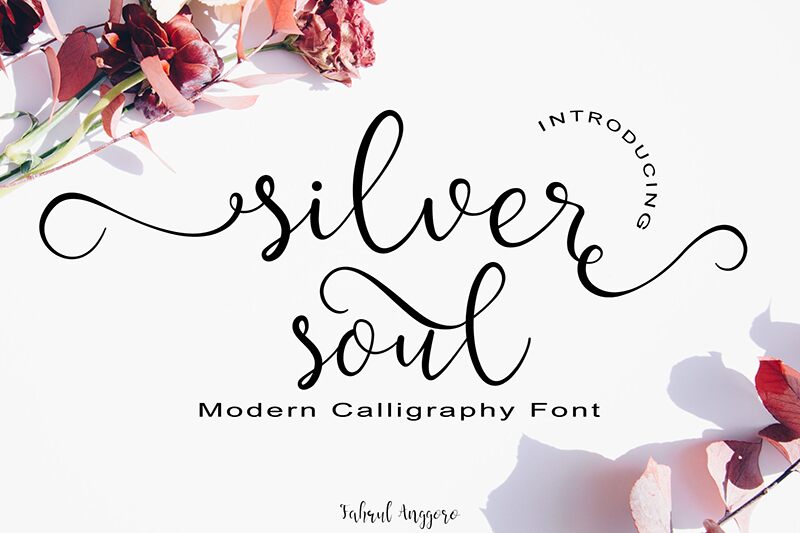
silver soul Script
Good news, now I want to intrduce my new font Called "silver soul" .
silver soul Font is Elegant Modern Calligraphy font. It's very suitable for everything your design needs.
Good news, now I want to intrduce my new font Called "silver soul" .
silver soul Font is Elegant Modern Calligraphy font. It's very suitable for everything your design needs.